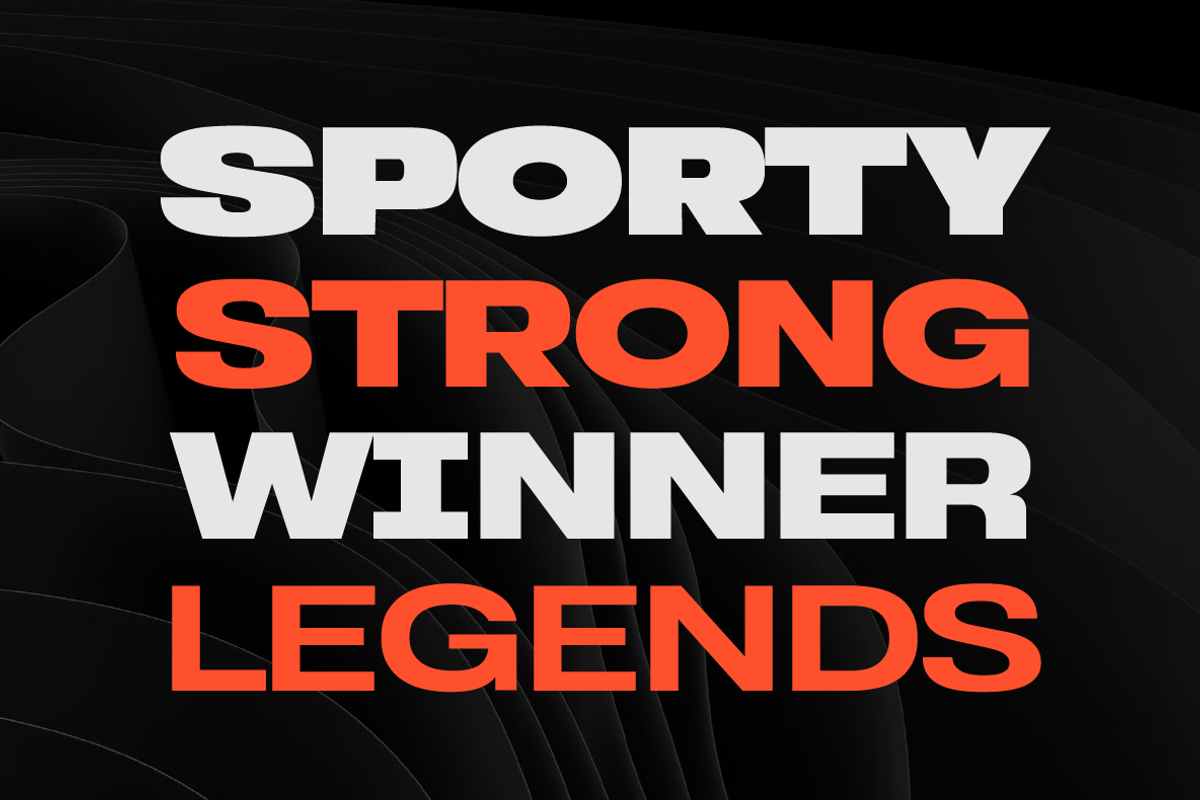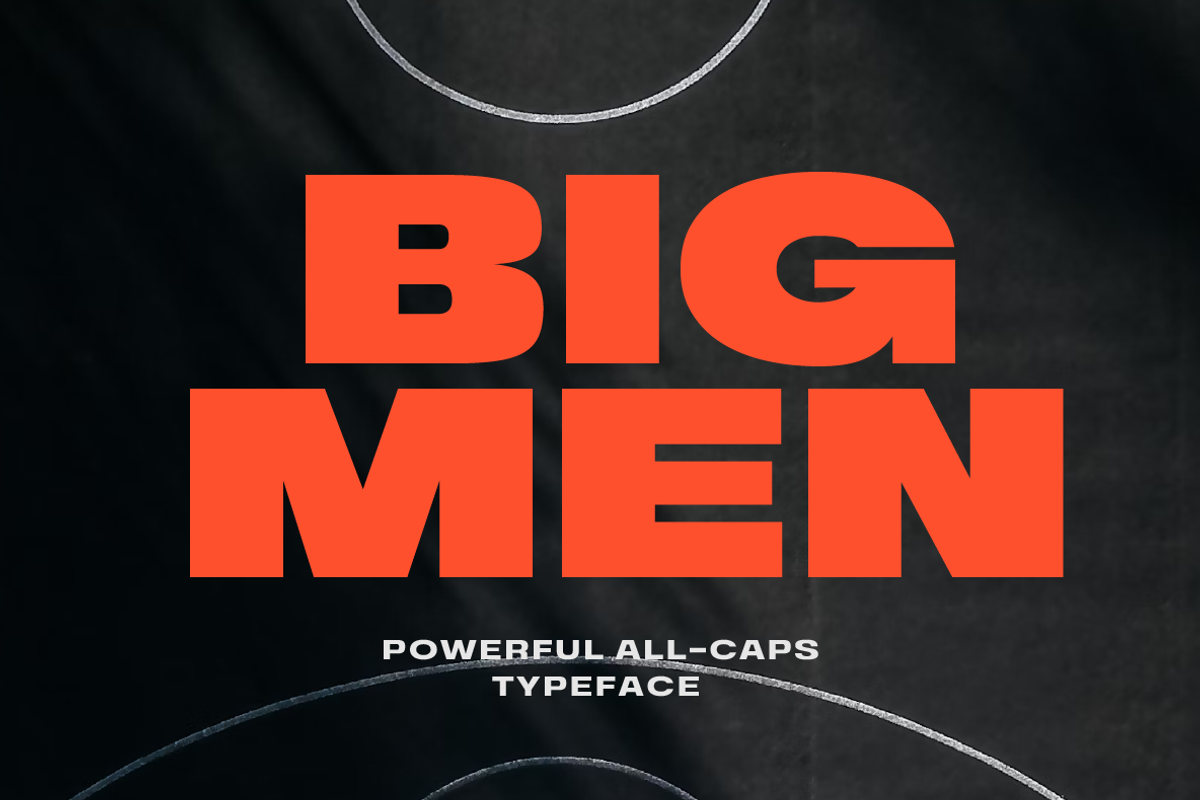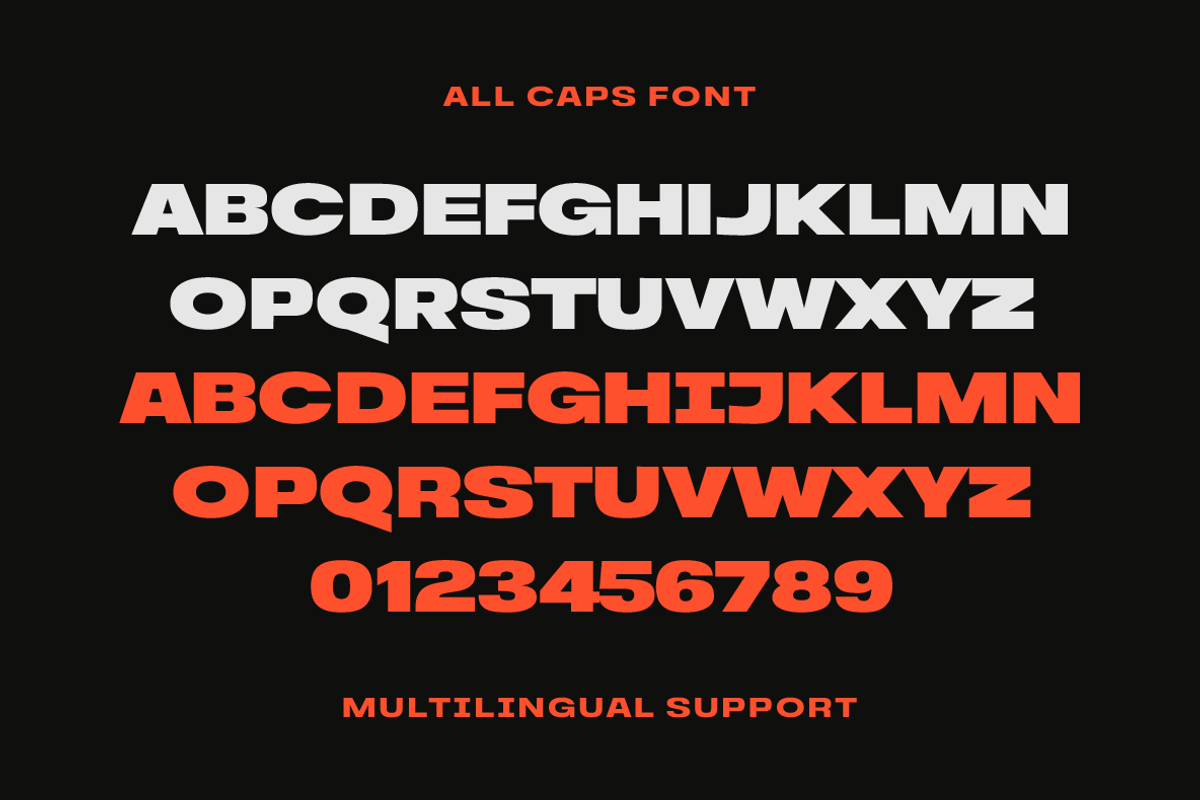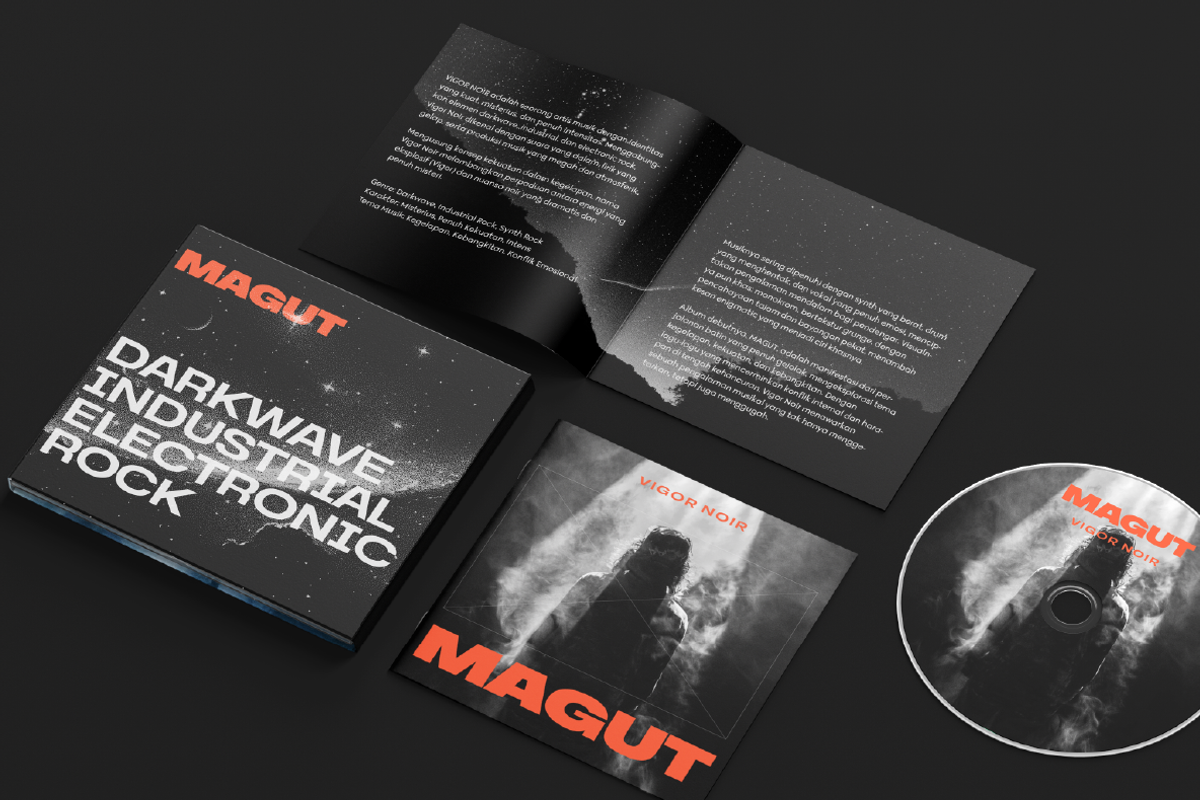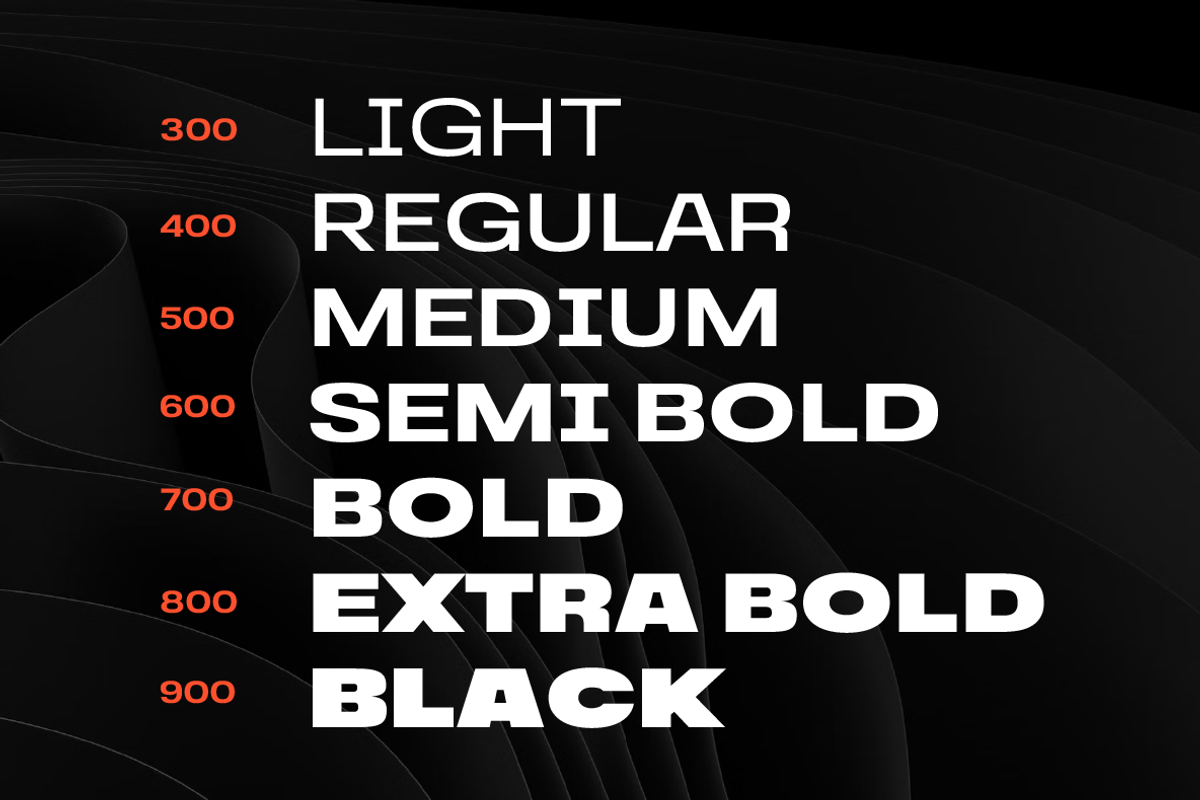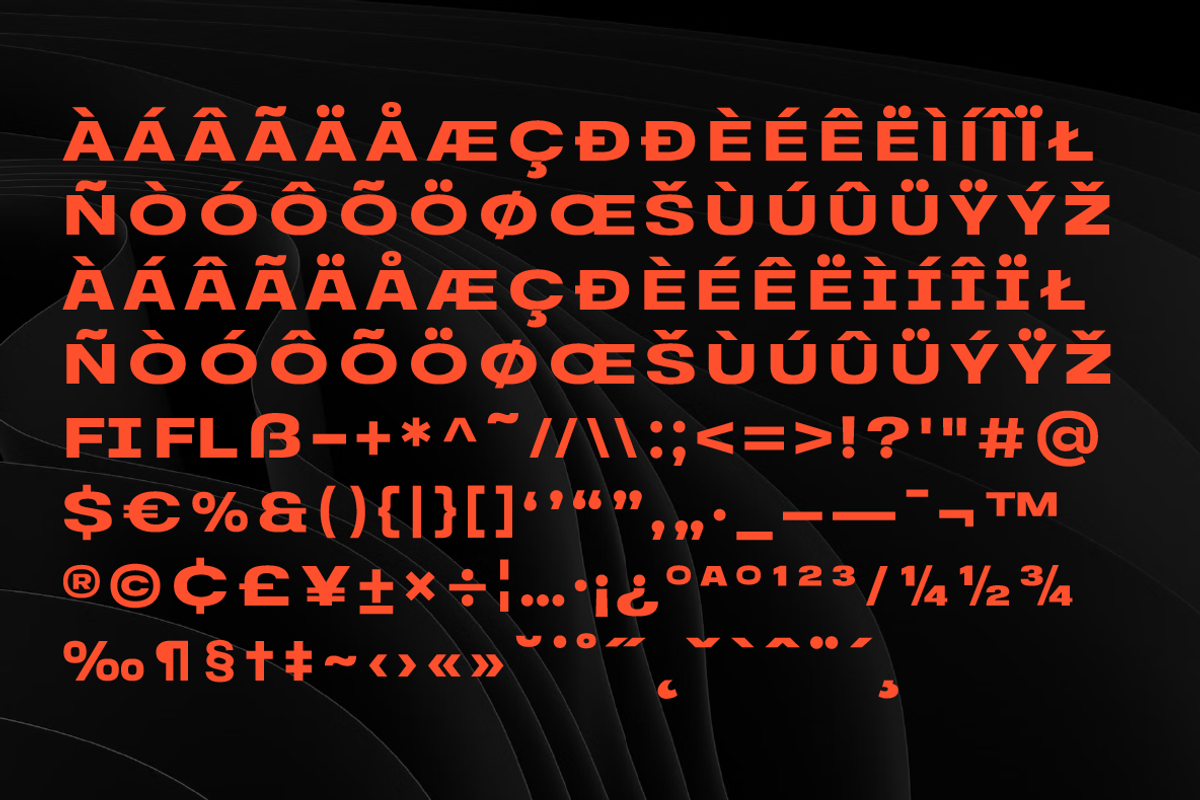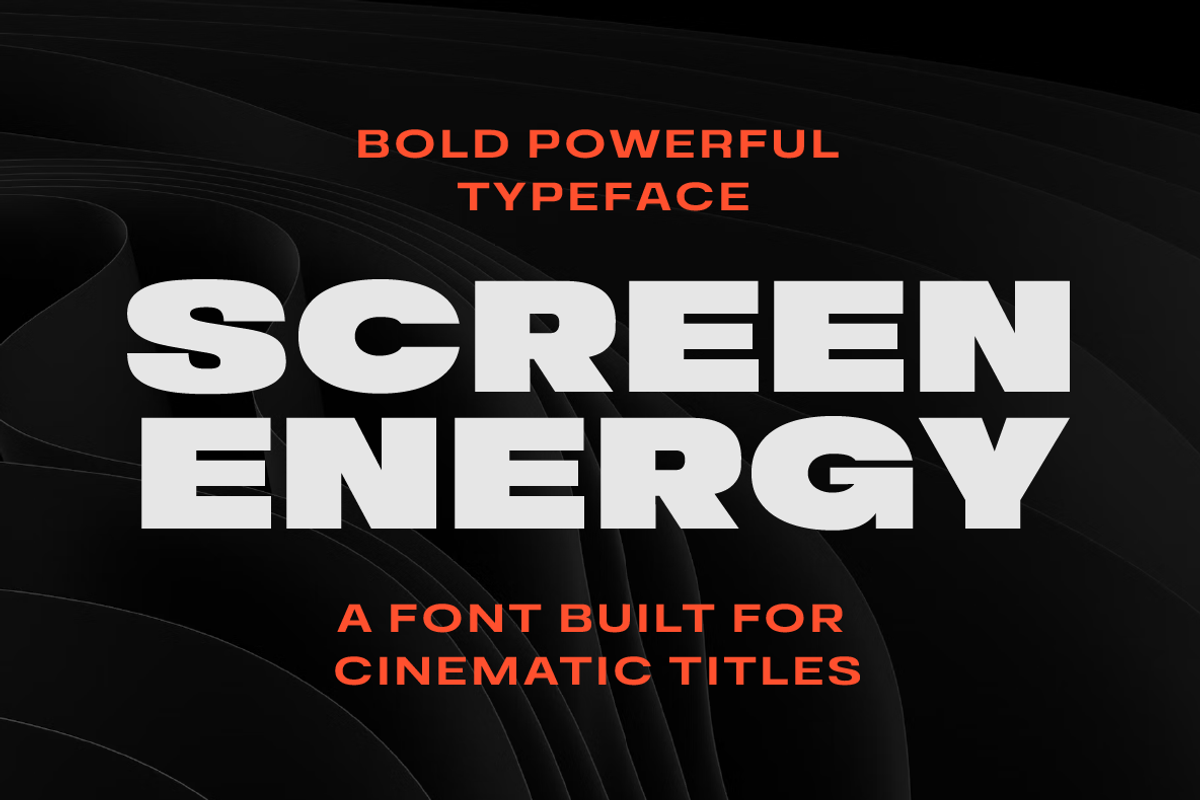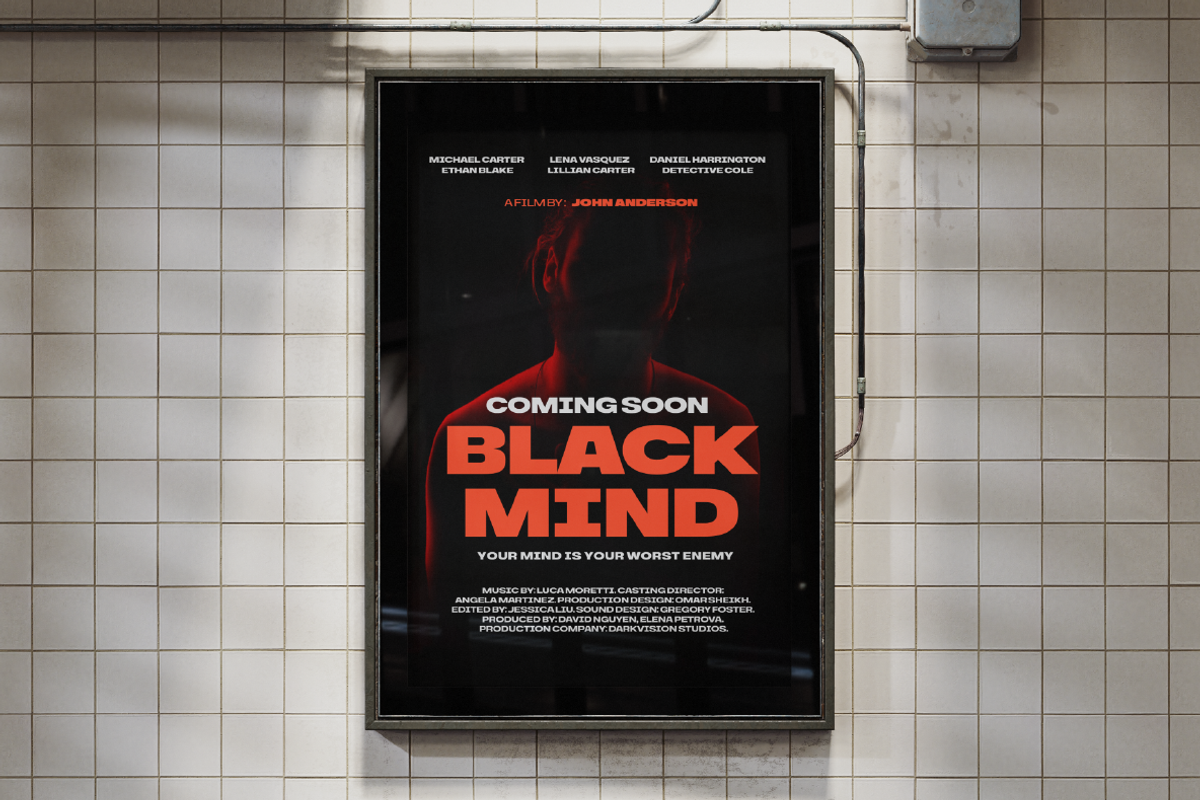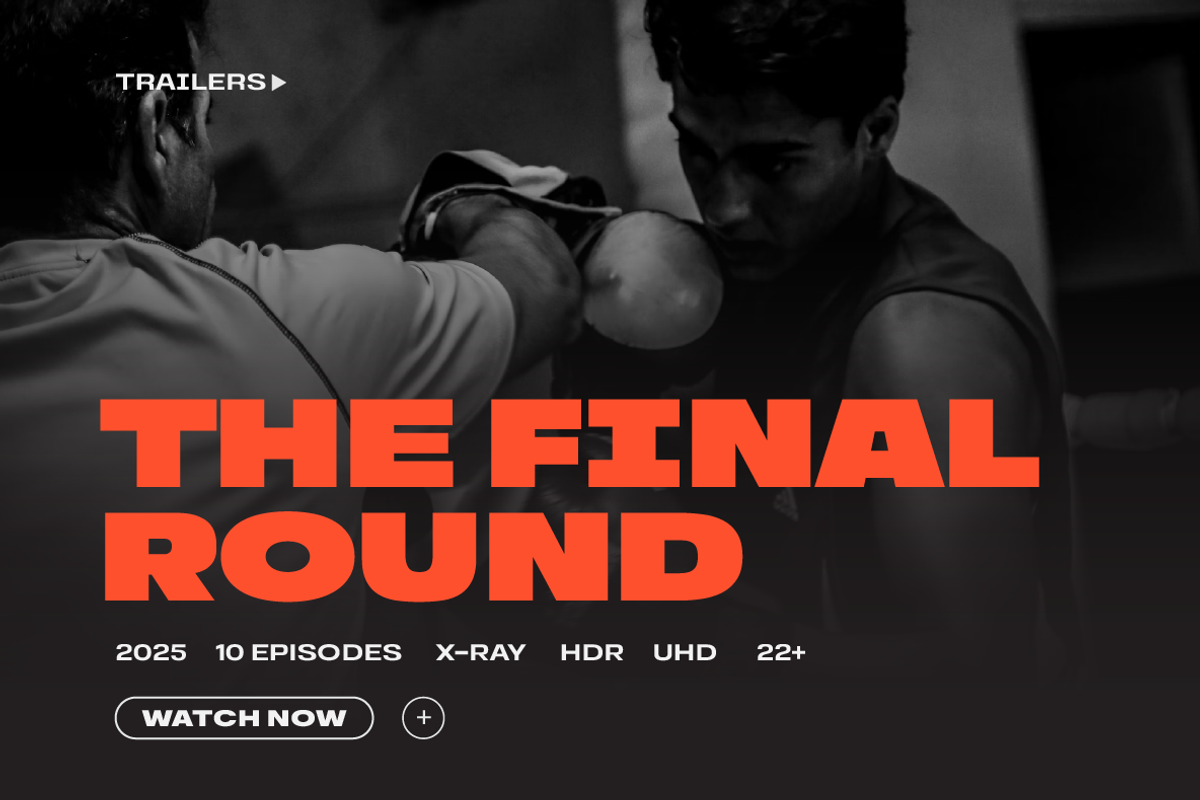
Bigmen All Caps Font
Bigmen is a bold all-caps sans serif typeface designed to make a strong visual impact. With its solid structure and sharp presence, Bigmen is perfect for projects that demand attention and authority.
Packed with 7 versatile weights — Light, Regular, Medium, Semibold, Bold, Extrabold, and Black — Bigmen gives you the flexibility to design everything from subtle titles to loud cinematic statements.
Whether you're creating film titles, trailers, streaming posters, sports branding, or digital ads, Bigmen delivers a cinematic and modern aesthetic that stands out on any screen or print.
- Movie Posters & Title Sequences
- Streaming Platform Thumbnails
- Sports & Fitness Branding
- Bold Headlines & Editorial Layouts
- Game UI & Promo Graphics
- All Caps Typeface
- 7 Weights: Light to Black
- Bold & Powerful Design
- Modern Sans Serif Look